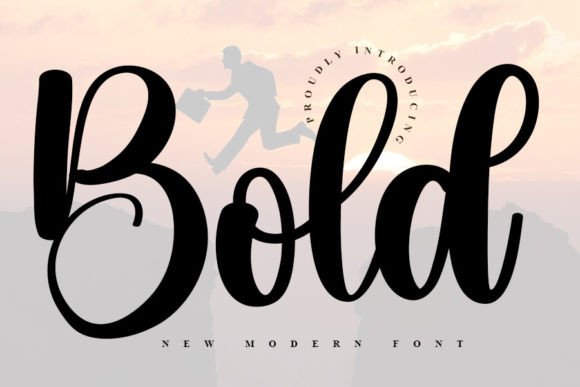
The Bold Font: A Timeless Beauty for Your Designs
I’ll never forget the time I was working on a project for a client who wanted a font that was both elegant and distinctive. I had spent hours scouring the internet for the perfect one, but nothing seemed quite right. That was when I stumbled upon the Bold font, and it instantly stole my heart. Its incredibly distinct and timeless style made it the perfect fit for my client’s project, and I’ve been obsessed with it ever since.
A Personal Review: What I Love About Bold Font
So, what makes the Bold font so special? Here are a few things that I absolutely love:
- ✨ Elegant touch: The Bold font has a beautiful, handwritten feel that’s perfect for adding a touch of sophistication to any design.
- ✅ Distinctive style: The font’s unique character makes it stand out from the crowd, ensuring that your designs will never get lost in the sea of sameness.
- 💯 Timeless appeal: Unlike some fonts that can look dated after a few years, the Bold font has a timeless quality that will keep your designs looking fresh for years to come.
While the Bold font is an amazing addition to any design, there are a few small quirks to be aware of:
- 🤔 Limited use in body text: While the Bold font is perfect for headings and titles, it may not be the best choice for body text due to its elegant, cursive feel.
- ⚠️ Glyph limitations: Some users have reported that the font’s glyph library is limited, which can make it difficult to create certain special characters.
The Designer Inspiration Behind Bold Font
While the origins of the Bold font are shrouded in mystery, it’s said that the font was inspired by the elegant handwriting of 19th-century calligraphers. The font’s creator, a talented typographer, sought to capture the essence of these beautiful scripts in a digital font that would be both timeless and versatile.
| Font Name | Bold Font |
| Author | ABBAsalam |
| What is the Bold font best used for? | The Bold font is perfect for headings, titles, and other design elements that require a touch of elegance and sophistication. |
| Can I use the Bold font for body text? | While the Bold font can be used for body text, it’s not recommended due to its elegant, cursive feel. Instead, use it for headings and titles to add visual interest. |
| Is the Bold font available in different weights or styles? | Yes, the Bold font comes in several weights and styles, including italic and oblique versions. |